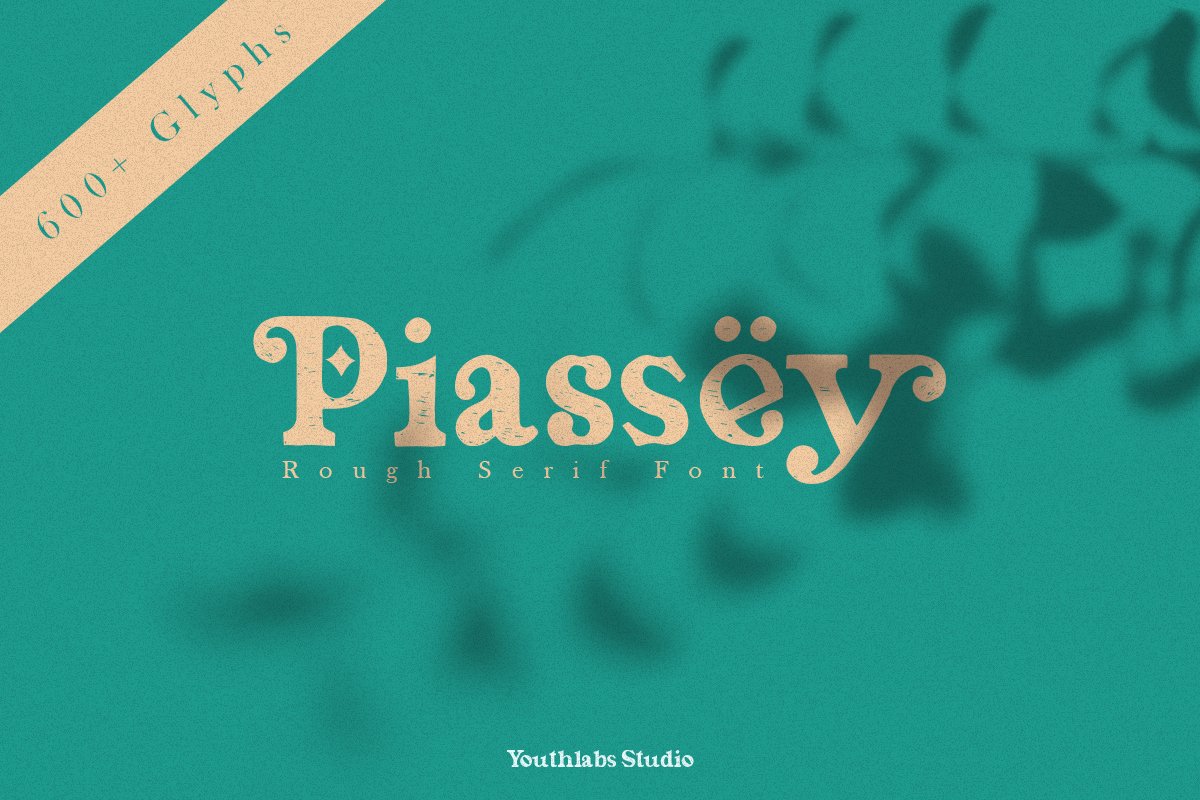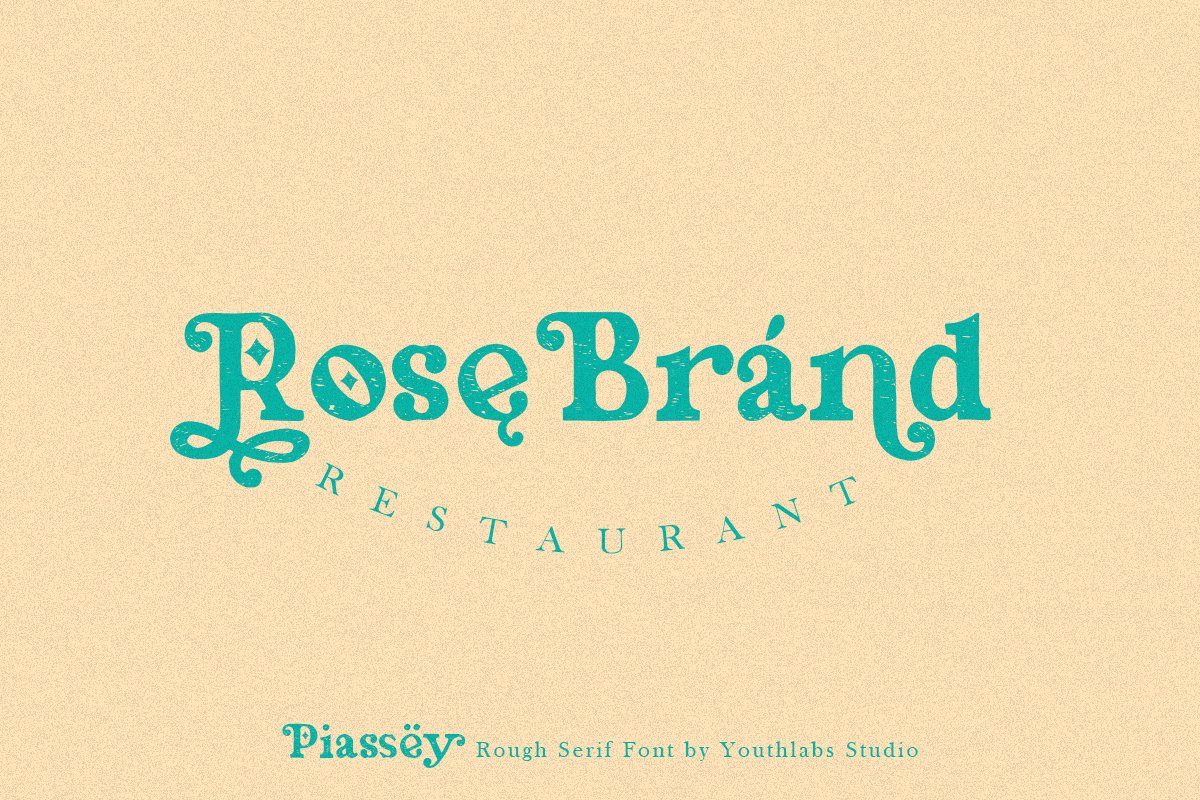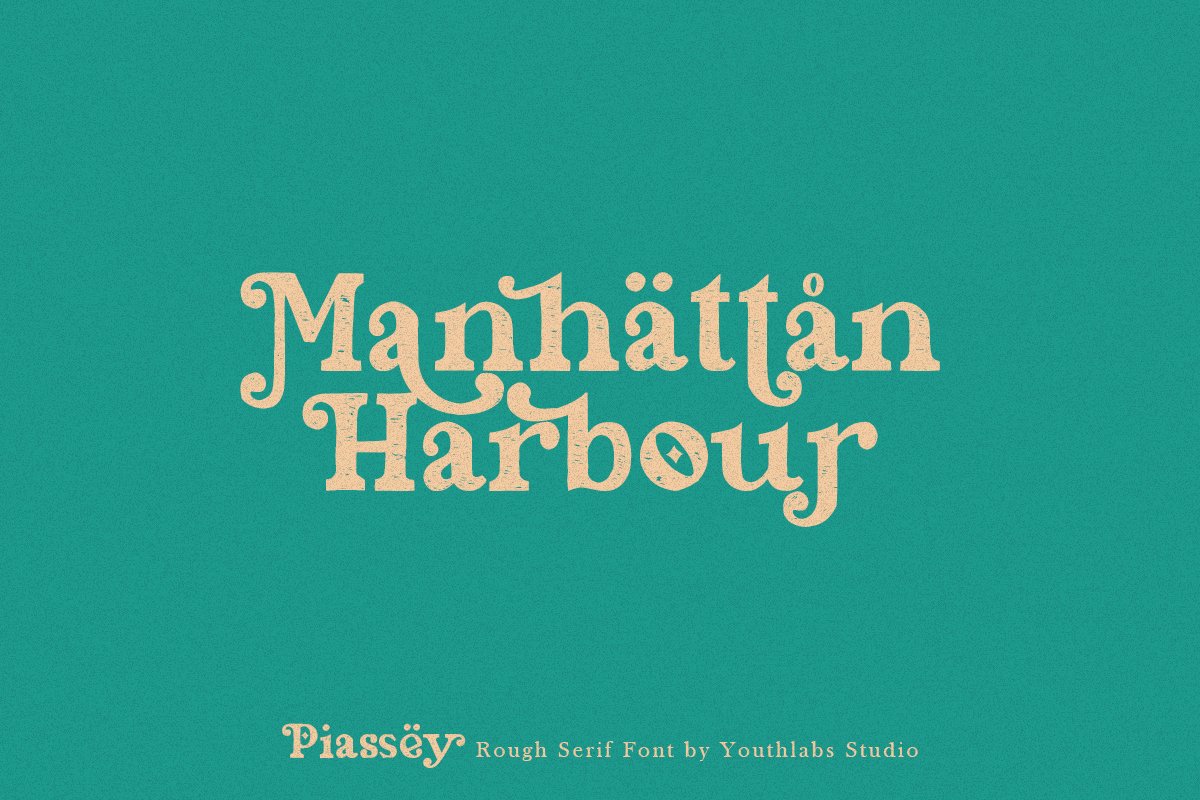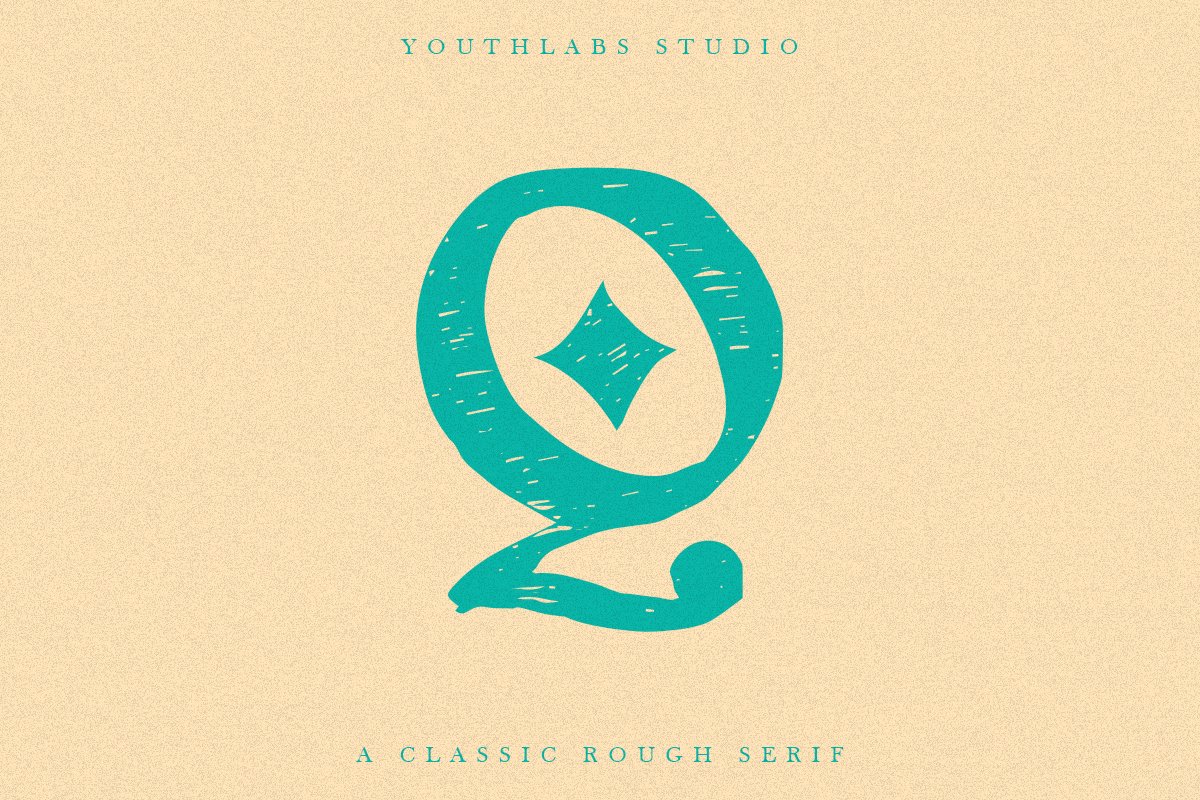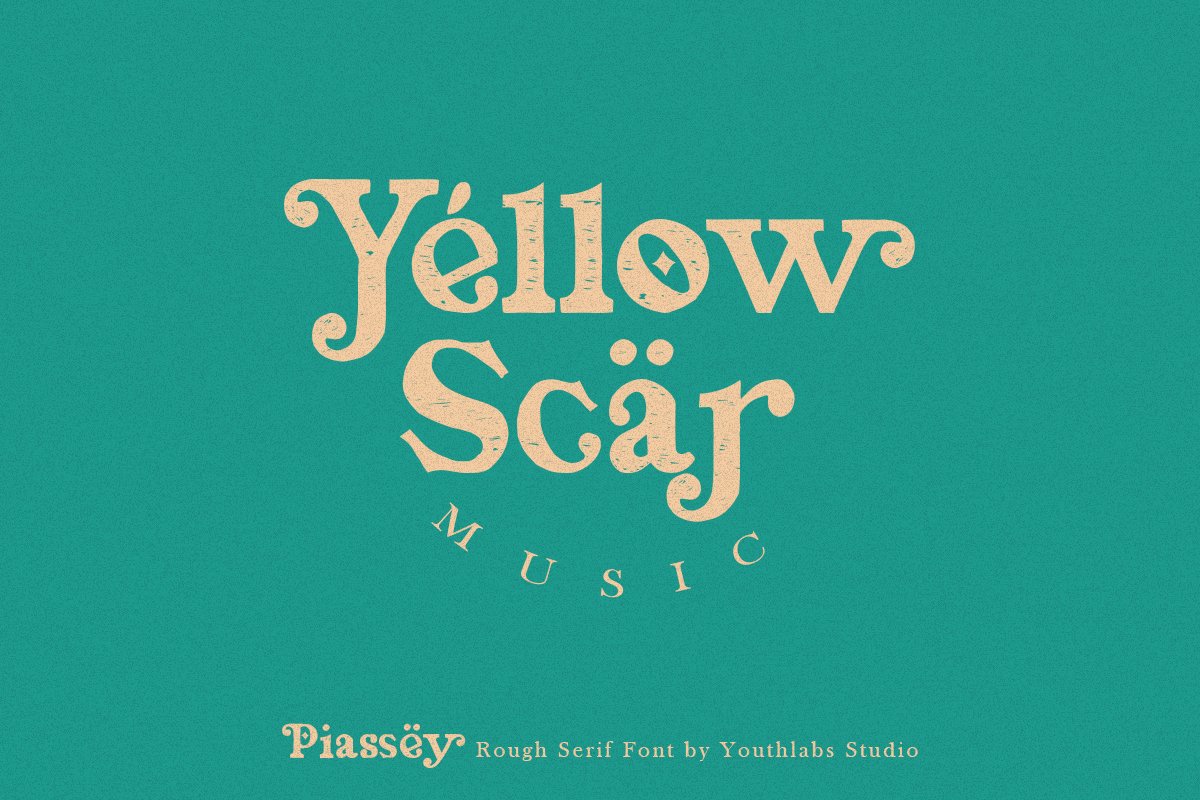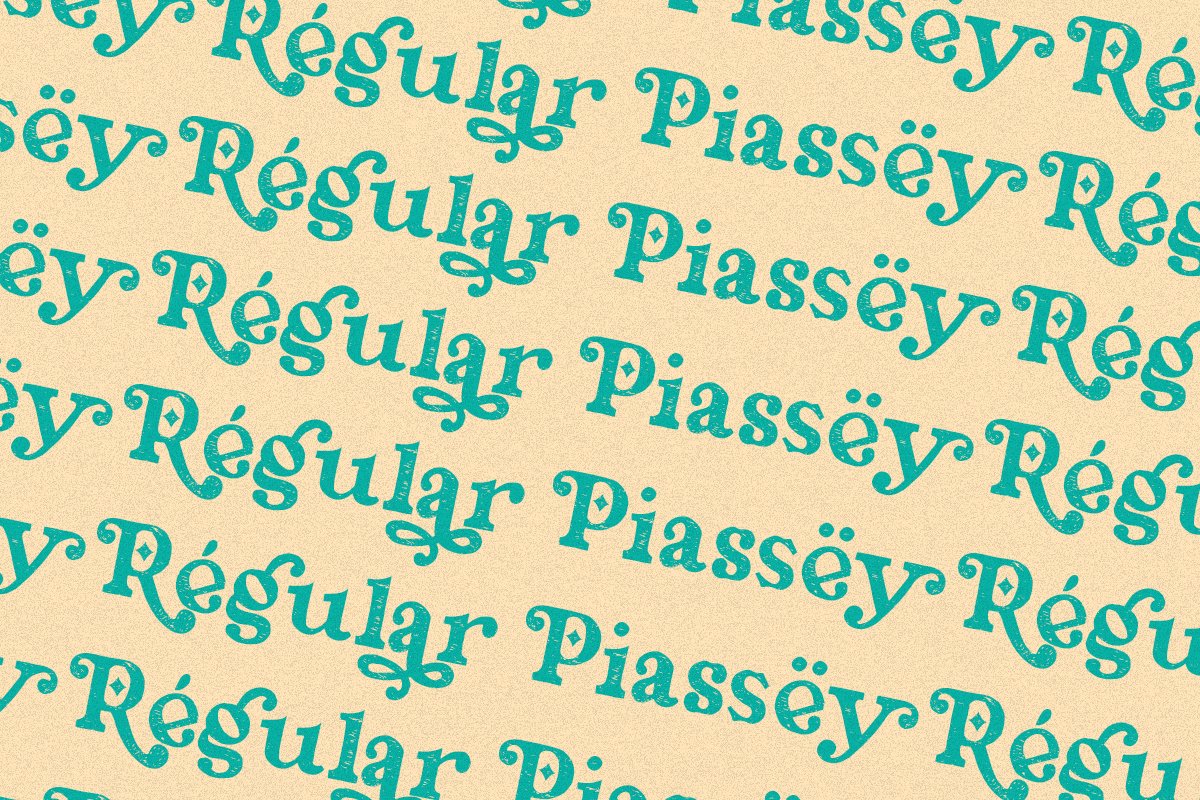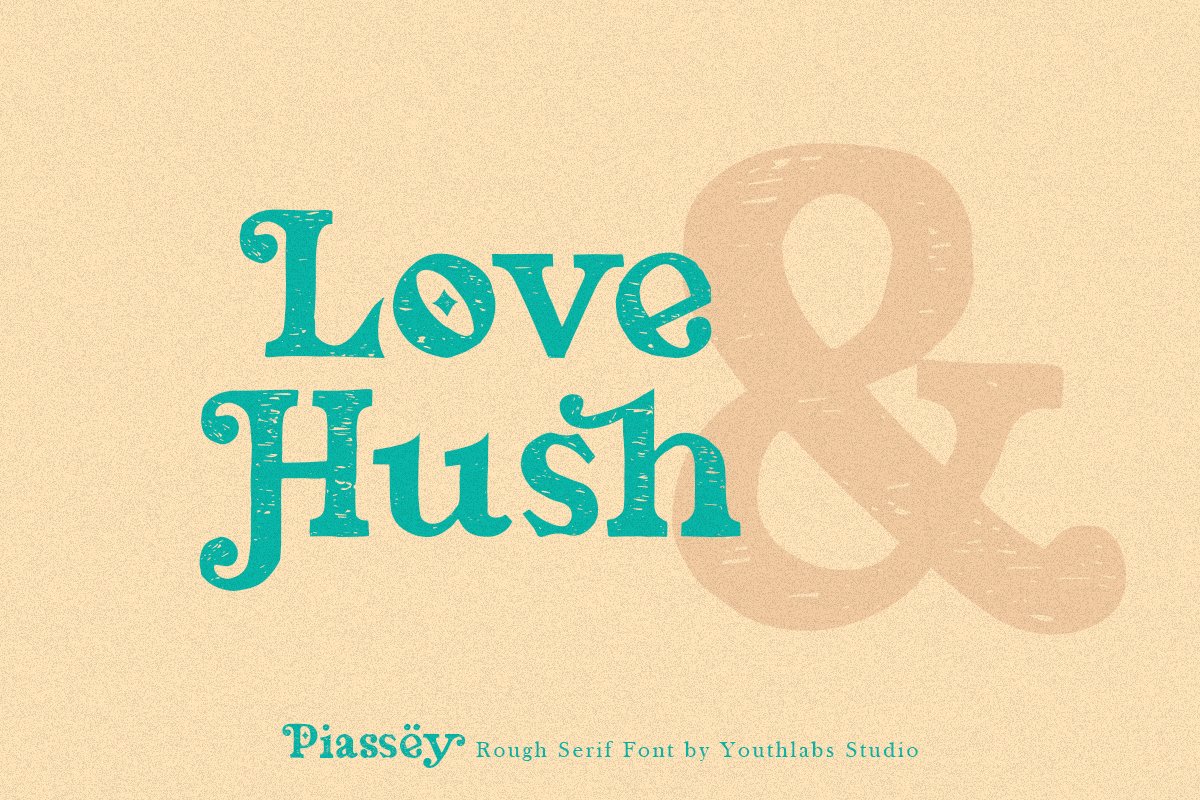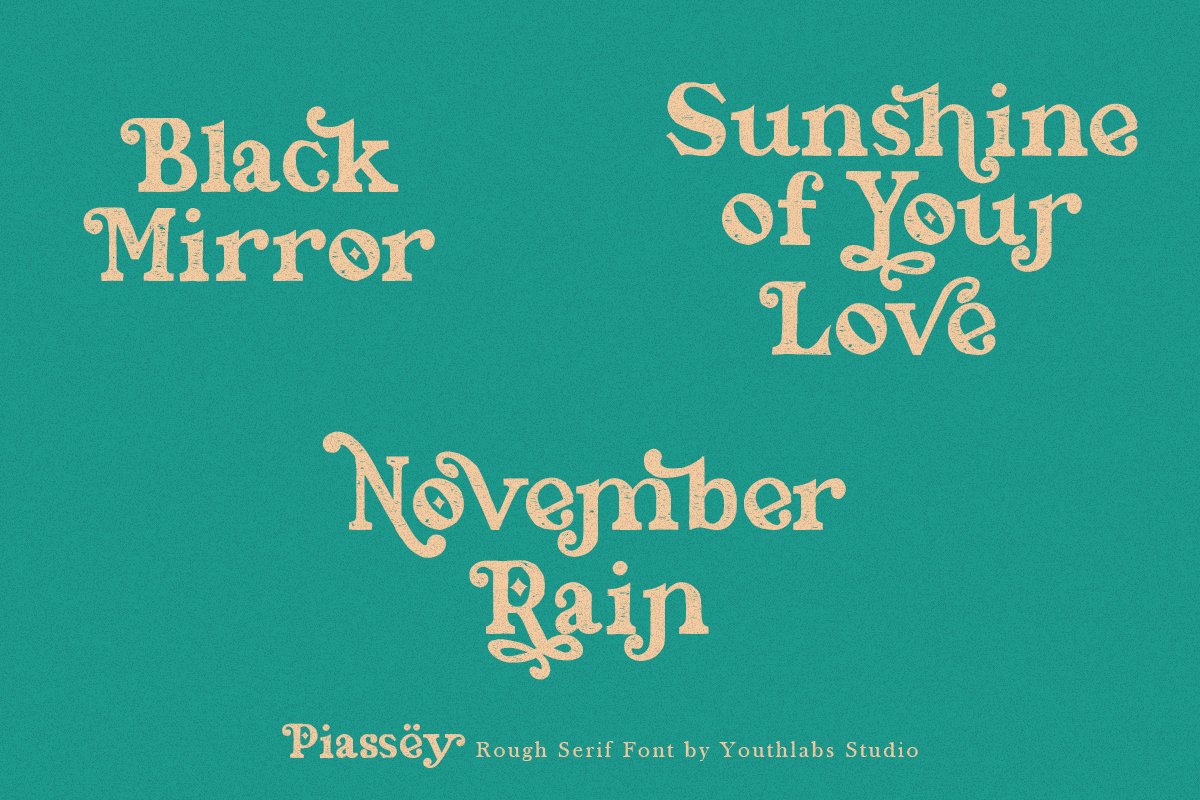
About the Piassey Rough Serif Font
Introducing Piassey Rough Serif Font – A New Serif Font with Rough Texture, Piassey Rough Serif come from scratch and vectorize with raw texture, Piassey Rough Serif Font made for fulfill design needs that require a natural texture, PIassey Rough Serif have More Alternative Character, and Multilingual SupportPiassey Rough Serif is a very versatile font
you can use this font to make perfect various design like Product Design, Tshirt Design, Card Design, Merchandise Design and many more, you can also improve more than 600 Glyphs in Piassey Rough Serif Font, Completely with Slant Mode made your design look coolPiassey Rough Serif Font support 24 Language : Afrikaans Albanian Catalan Croatian Czech Danish Dutch English Estonian Finnish French Hungarian Italian Lithuanian Maltese Norwegian Polish Portugese Slovak Slovenian Spanisch Swedish Turkish ZuluWhat’s Include ?Piassey